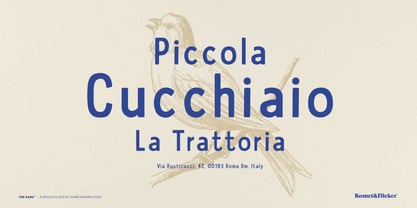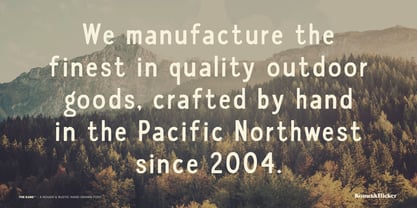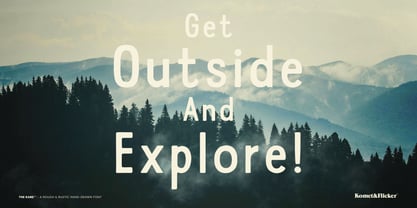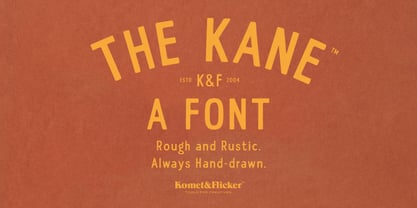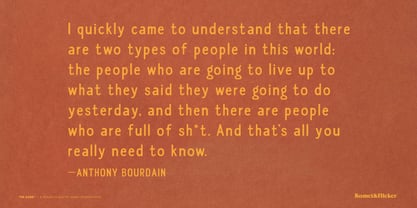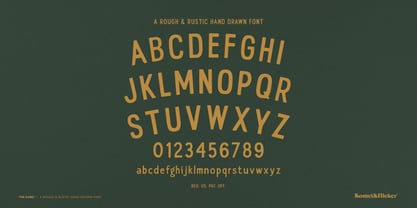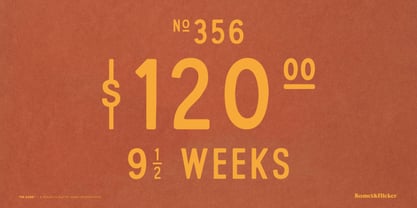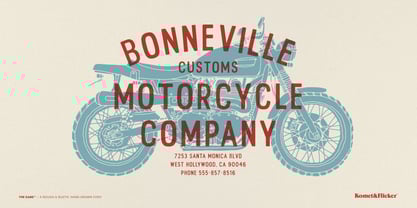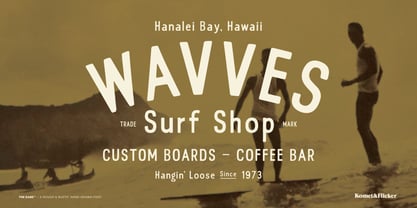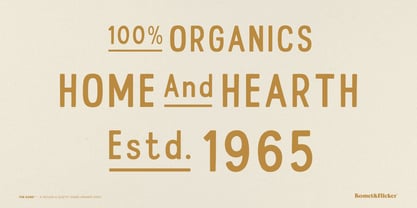
The KANE
Introducing The KANE, a rustic sans serif font that exudes a charming vintage old-school vibe. With its smooth, rounded edges, this typeface captures a well-worn, timeless feel that’s perfect for any design that needs a touch of authenticity. Its rough, hand-drawn quality brings personality and warmth to your text, making it stand out with a natural, crafted look.
Whether you're working with bold, eye-catching headlines or longer passages of text, The KANE adapts effortlessly, delivering readability and character in equal measure. It’s versatile enough for both large statements and detailed content, ensuring your designs have consistent flow and style.
Plus, The KANE comes with a unique set of 20 custom connecting words, designed to add seamless flow to your typography. In addition, this font is multilingual, supporting select European glyphs, so it’s perfect for global projects.
Embrace the rustic charm of The KANE and give your designs a unique, timeless touch.
THIS FONT INCLUDES
• Full A-Z uppercase basic latin characters
• Select European specific characters
• Numbers, punctuation, and select symbols
• Set of 20 custom connecting word glyphs